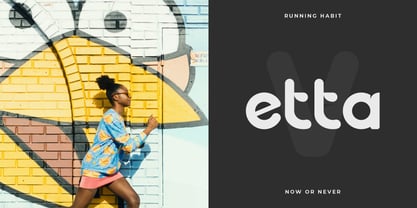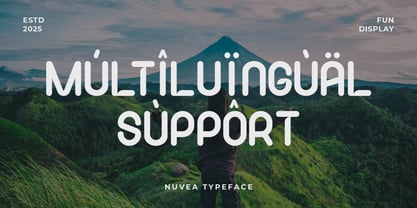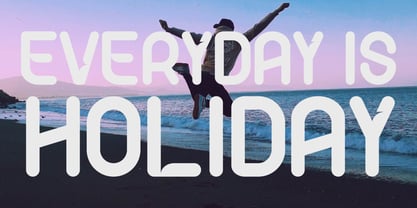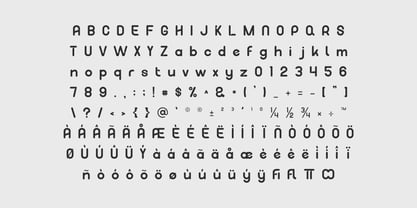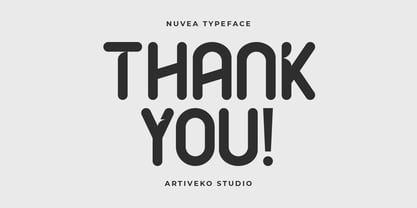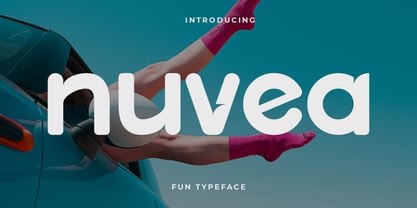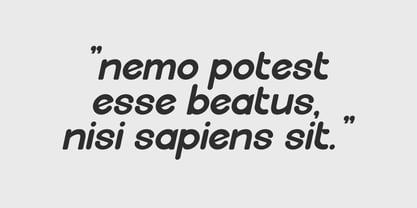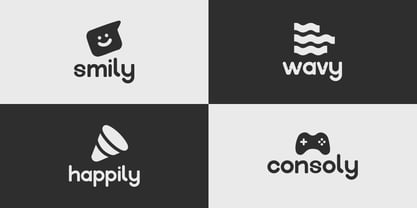
Nuvea
by Artiveko
Nuvea is a fun and playful display font designed to brighten up any project. With its rounded edges, bouncy rhythm, and quirky charm, Nuvea brings a sense of joy and creativity to your typography. Perfect for kids' designs, colorful branding, party invitations, packaging, social media, and anything that needs a splash of happiness.
Crafted with a bold yet friendly character, Nuvea includes uppercase and lowercase letters, multilingual support, and playful alternates to give your words extra personality. Each letter is full of energy and movement — making it ideal for catching attention and spreading smiles.
Whether you're designing a cheerful poster or building a brand with heart and fun, Nuvea adds charm and color to your message. Say it loud, say it playfully — with Nuvea, where every letter feels like a happy surprise.
Designers: Iwan Alwan
Foundry: Artiveko